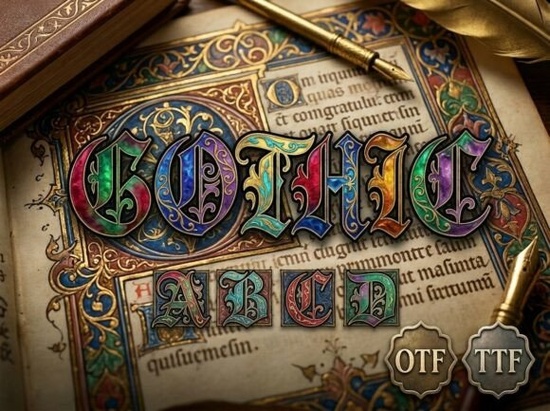
Looking for a font that commands attention and adds a dramatic flair to your designs? The Gothic Font is a striking choice for anyone who wants to make a bold statement. This decorative display font is ideal for headlines, logos, and creative projects where visual impact matters most. Whether you're designing for a small business, crafting custom merchandise, or working on a personal project, the Gothic Font brings a unique artistic touch that stands out.
One thing to keep in mind is that this font is designed exclusively for uppercase letters. It doesn’t include lowercase characters, making it best suited for high-impact headlines, logos, and decorative initials. If you’re looking for a font that can handle full sentences with lowercase letters, this might not be the right fit. However, for projects that emphasize bold, stylized text, the Gothic Font is a powerful tool.
What Makes the Gothic Font Stand Out?
The Gothic Font is more than just a typeface it’s a design element that adds character and personality to any project. Its strong visual presence makes it perfect for branding, packaging, and artistic expressions where every letter needs to feel like a work of art. The font’s intricate details and dramatic strokes give it a sense of elegance and intensity, making it ideal for themes that lean into darkness, mystery, or gothic aesthetics.
When to Use the Gothic Font
This font shines in situations where you want to create a strong visual identity. It’s commonly used for:
- Headlines and titles in print or digital media
- Logos and brand identities that need a distinctive look
- Artistic packaging and product labels
- Decorative initials and calligraphy-style text
Its all-caps design ensures consistency and clarity, making it easier to use in layouts where uniformity is important. While it may not be suitable for body text, it excels in areas where it can take center stage.
How to Get the Most Out of This Font
If you're new to using decorative display fonts, start by experimenting with different sizes and placements. The Gothic Font works best when it’s given space to breathe, so avoid overcrowding your design with too much text. Pairing it with simpler fonts can help balance the overall look and ensure readability.
Whether you're a designer, a craftsperson, or a small business owner, the Gothic Font offers a fresh and stylish way to elevate your creative projects. With its versatility and strong visual appeal, it’s a valuable addition to any digital or print design toolkit.